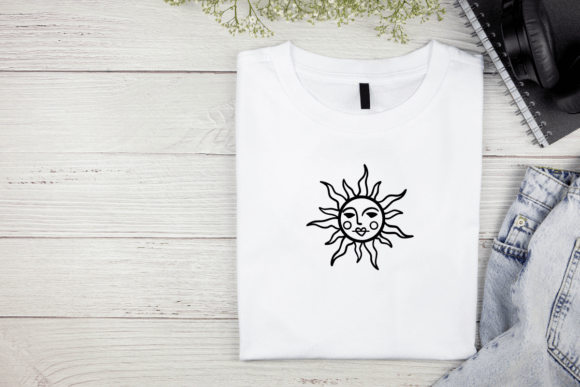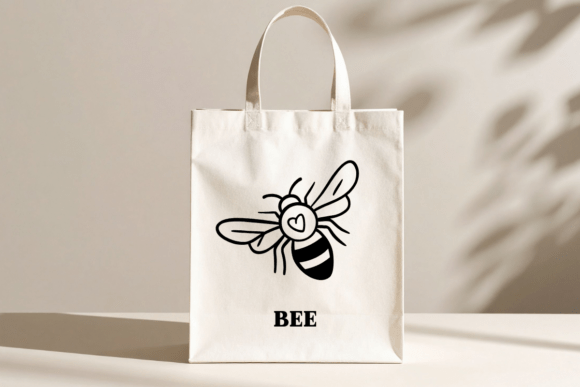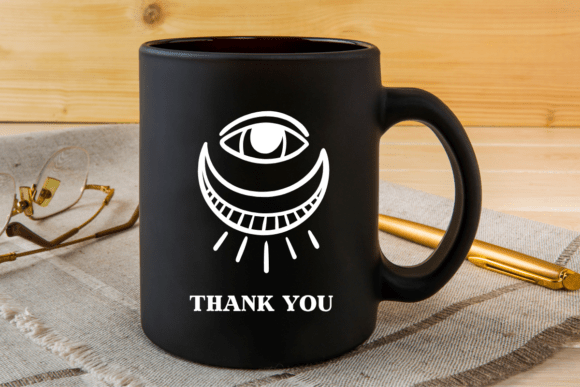
Introduction to Magic Summer Icon Set Font Font
Fonts play a crucial role in design, and the Magic Summer Icon Set Font font is a typeface that brings both character and versatility to any project. Whether you’re working on a branding project, a website, or a print design, the Magic Summer Icon Set Font font offers a unique style that can elevate your work.
Magic Summer: Whimsical Icon Dingbats Font Capture the carefree spirit of the sunniest season with Magic Summer.
Unlike a standard alphabet font, this dingbat set is a treasure chest of hand-drawn line art Featuring over 30 unique icons—from celestial suns and mystical moths to beachy sea turtles and tropical hibiscus—it is the perfect tool for creating custom stickers, social media graphics, and personalized stationery.
Key Features of Magic Summer Icon Set Font Font
Why Choose Magic Summer Icon Set Font Font?
The Magic Summer Icon Set Font font is more than just a typeface – it’s a design tool that helps you communicate your message with style and clarity. Its unique character set and versatile design make it suitable for a wide range of applications, from elegant invitations to bold headlines.
With its carefully crafted letterforms and balanced proportions, the Magic Summer Icon Set Font font ensures readability and visual appeal across all mediums.
What makes Magic Summer Icon Set Font font special?
The Magic Summer Icon Set Font font stands out with its unique design, exceptional readability, and versatility across various design applications.